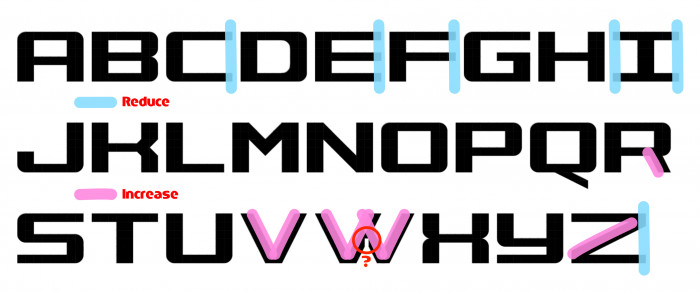
this is my first published font since I joined. So, I am not a professional font designer. I just made this font for fun. So if you have any problems please feel free to share them in the comments.
I like it. I am no prfessional either, just hobbyist and I really do not have problem with anything, I would just suggest some details for consideration.
The joint of W, I am not sure if it was intentional or just a dropped brick,
Letter K maybe could have little deeper wedge from right,
Letter X maybe could be blend of two K wedges back to back.
The joint of W is not possible as the bricks are overlapping in opposite directions, but I will try to solve this issue.
for letter K I think that it is clearly visible (from my view)
and for letter X I will update soon. (I liked your idea!)​​​​​​
now looking very much better than before!  thanks, @Peter (Petruuccio) for the suggestion.
letter W joined
Hi, GS. I'm still an learner after all these years in FS and I'm not a professional font designer by any means. But let me show you some hints on some of your glyphs, IMHO. Don't worry, making a font is like walking through a maze, but you could make it easier by following a few rules and deciding what to do with each letter.
But always remember that the font is yours and you decide the design of its glyphs. Good luck and move on.
So you eventually found a way for that joint :-) Good job. I also like the suggestion for making some glyphs more "uniform" in width and thickness, but like Elmo said, it is your font to decide, whether to incorporate any suggestion or not. It has to suit you.
Most have been explained by elmoyenique & and Peter above. I like to add just something to that, since elmoyenique said something that might confuse some, to quote some parts from the above comments:
elmoyenique said: "the font is yours and you decide the design of its glyphs."
Peter said: "it is your font to decide, whether to incorporate any suggestion or not."
— Which is absolutely right, but, when one wants more traditional lettering and make better quality fonts there are some basic concepts and rules that should be concidered in terms of constructing letter geometry.
Peter said: "It has to suit you."
— Perhaps in a most abstract way thats probably right. but lets be honest for a second here. Formost of all "it has to suit the font" and only the font as a whole in return has to suit its creator. At least if the goal is to make good functional quality fonts.
I created a set of infographs which contain some concept quidance that I think is pretty useful to know. I will include them in the comments bellow
Now, these infographs are a response to the "mixed bag" of styles for letter geometry that I detect in this fontstruction. There basically are 3 completely different geometric concepts that run random throughout the glyph set, and are somewhat conflicting together.
ALL CAPSby GamerScreen202178